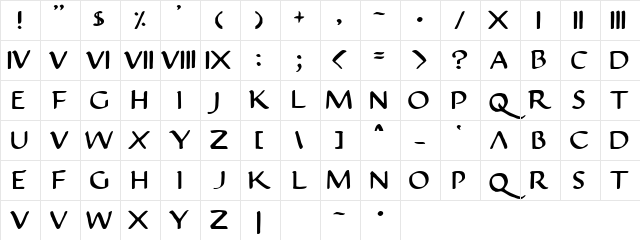
Justinian 2 Regular Free Font
Justinian 2 Regular
Design Context for Justinian 2
Justinian 2 is a composed and adaptable typeface that performs quietly and consistently across a wide range of design contexts.